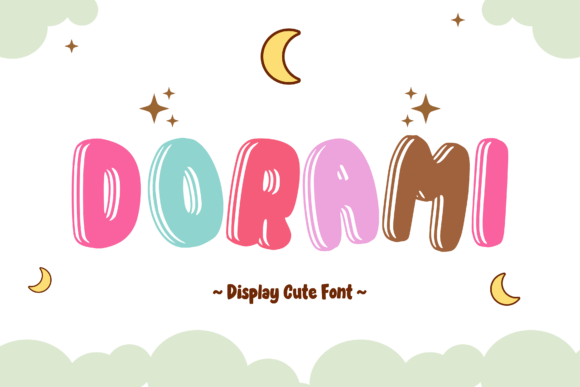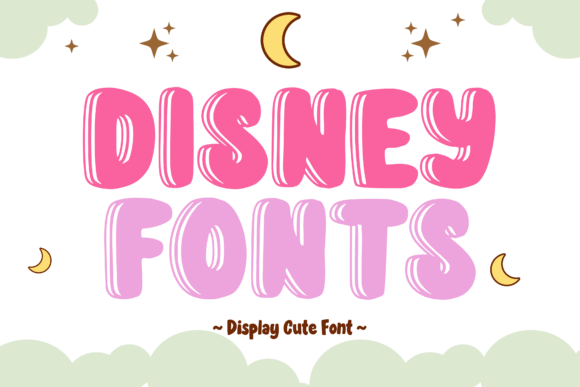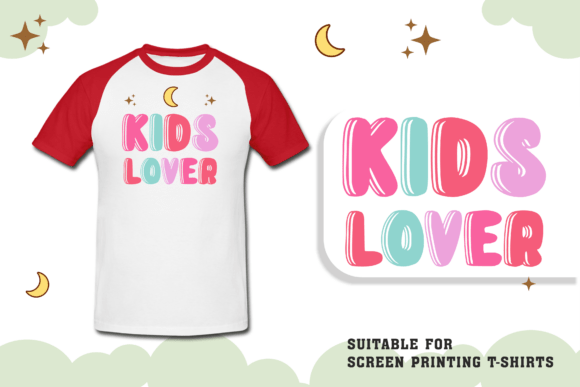
Unlock the Joy of Design with Dorami Font
Have you ever been brainstorming a design project, flipping through inspiration boards, and suddenly, a burst of creativity hits you? That’s exactly what happens when you come across the perfect font – one that instantly elevates your ideas and brings them to life. For designers looking to add a dash of whimsy and charm to their projects, the Dorami Font is an absolute treasure trove.
This delightful display font is specifically designed to infuse a sense of elan and cheer into your creative endeavors. Whether you’re working on a children’s t-shirt, cartoon character design, or craft project, Dorami Font is the perfect companion. Its versatility and vivacious appeal make it an invaluable asset for designers, allowing them to reinvent their design narratives and captivate their audience with ease.
Dorami Font Key Features
- Font Family: Dorami Font is a unique, handwritten font family designed to evoke a sense of playfulness and whimsy.
- Character Count: The Dorami Font family includes a vast range of characters, including uppercase and lowercase letters, numbers, punctuation marks, and special symbols.
- Unique Characteristics: Dorami Font features a unique, hand-drawn design with subtle imperfections and variations, giving it a distinctive and eye-catching appearance.
Dorami Font Review
Overall, I’m quite impressed with the Dorami font, but it’s not without its quirks. ✨ The font’s playful and whimsical nature makes it perfect for titles, headings, and children’s content. Its rounded edges and soft curves evoke a sense of friendliness and approachability.
- ✨ Unique and creative design that stands out from more traditional fonts
- ✨ Perfect for projects that require a touch of playfulness and whimsy
- ✨ Excellent for titles, headings, and any content that needs to grab attention
- ⚠️ May not be suitable for formal or professional content due to its casual nature
- ⚠️ Limited font sizes and weights may make it difficult to use in certain contexts
- ⚠️ May not be compatible with all operating systems or devices due to its unique design
Overall, I’d say the Dorami font is a great addition to any designer’s toolkit. While it may have some limitations, its unique design and playful nature make it perfect for certain projects. With a little creativity and experimentation, you can unlock the full potential of this charming font.
Dorami Font Practical Application Guide
To get the most out of the Dorami Font, experiment with different font sizes, colors, and styles to create a unique look. Use it in combination with other fonts to create a visually appealing design.
The Dorami Font is ideal for creating playful, whimsical designs, such as children’s book illustrations, party invitations, and social media graphics. It’s also great for adding a touch of elegance to wedding invitations, menus, and other formal documents.
Alternatives to Dorami Font for Designers
Great Vibes is a modern, elegant script font perfect for creating a sophisticated and professional look. It’s ideal for branding, packaging, and advertising materials. Great Vibes has a more refined and polished feel compared to Dorami Font, which makes it suitable for high-end projects.
Comparison to Dorami Font: Great Vibes has a more refined and elegant feel, while Dorami Font has a more playful and whimsical vibe. Great Vibes is better suited for formal projects, while Dorami Font is more suitable for informal or creative projects.
Pacifico is a beautiful, elegant script font that’s perfect for creating a relaxing and calming atmosphere. It’s ideal for branding, packaging, and advertising materials that require a touch of sophistication. Pacifico has a more subtle and refined feel compared to Dorami Font, which makes it suitable for projects that require a more understated approach.